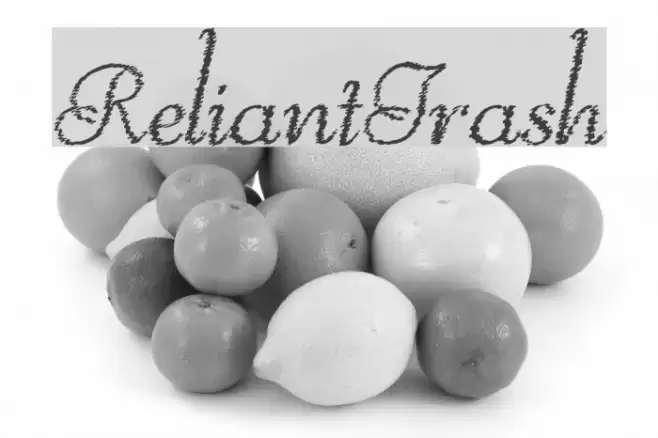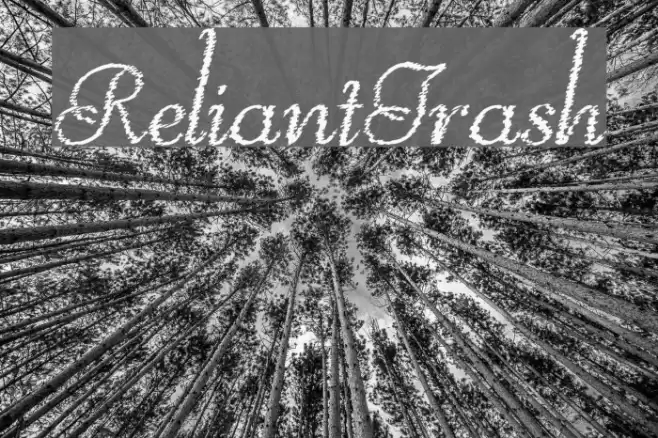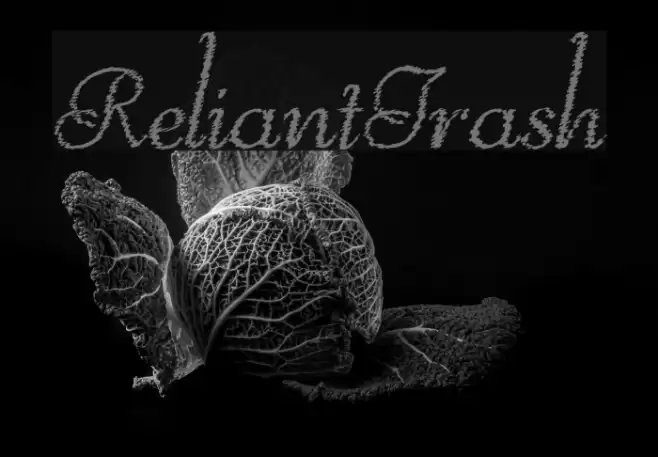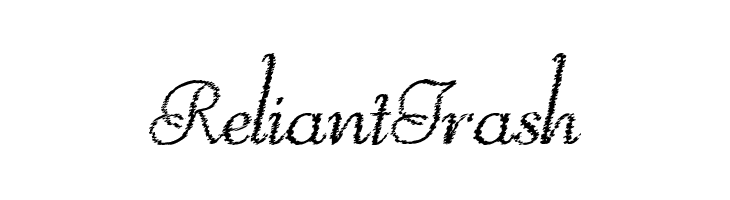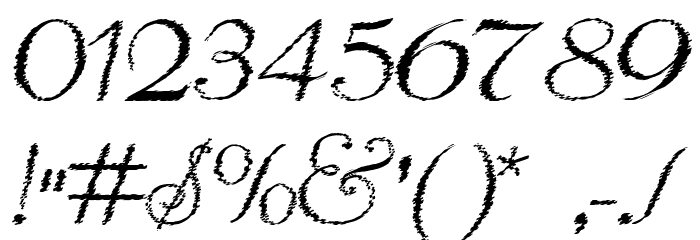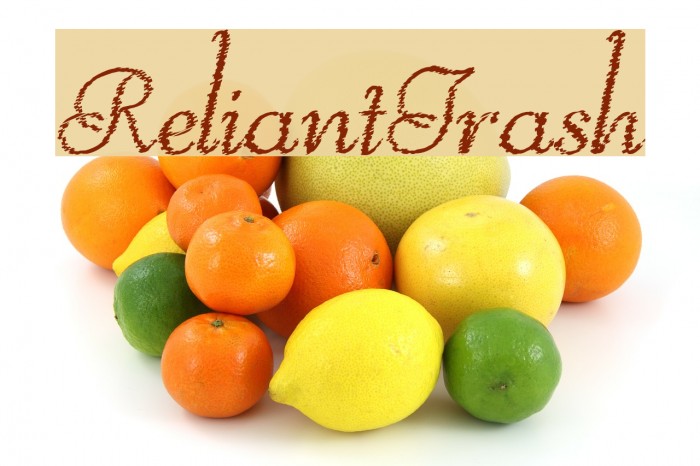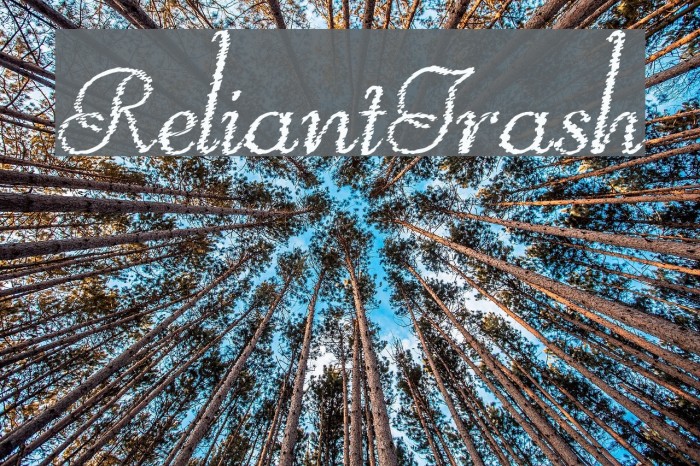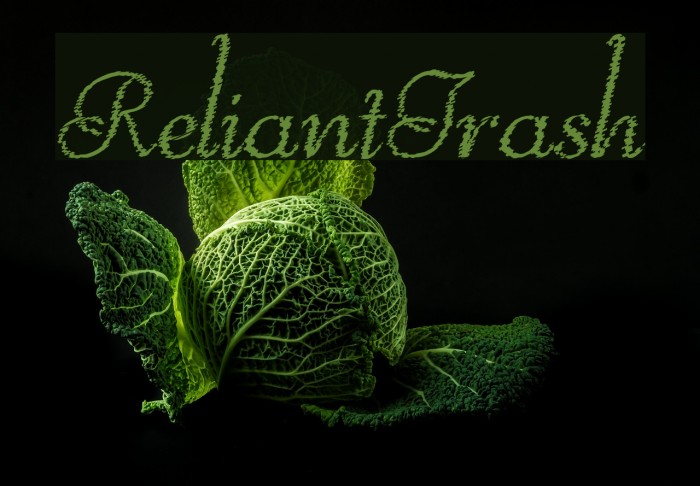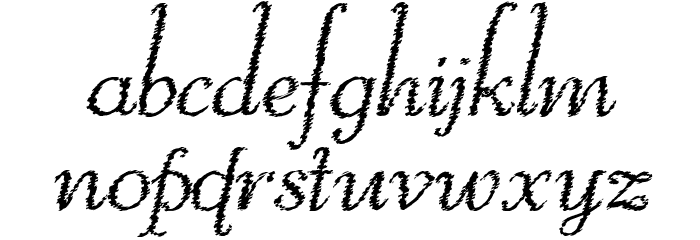
ReliantTrash Font
ReliantTrash Description
This font features a distinctive cursive style with a textured, brush-like appearance. The letters are elegantly connected, giving it a flowing and dynamic look. The uppercase letters are slightly more ornate, while the lowercase letters maintain a consistent, smooth flow. Numbers and special characters are crafted with the same attention to detail, ensuring a cohesive appearance across all glyphs. The font's textured strokes add a unique, artistic touch, making it stand out in any design project.
A textured, cursive font with a brush-like appearance and elegant flow.
- Proposed Projects: Ideal for wedding invitations, greeting cards, artistic posters, and branding materials that require a personal and elegant touch.
- Category: Script
- Use Case: Logos, Invitations, Artistic projects